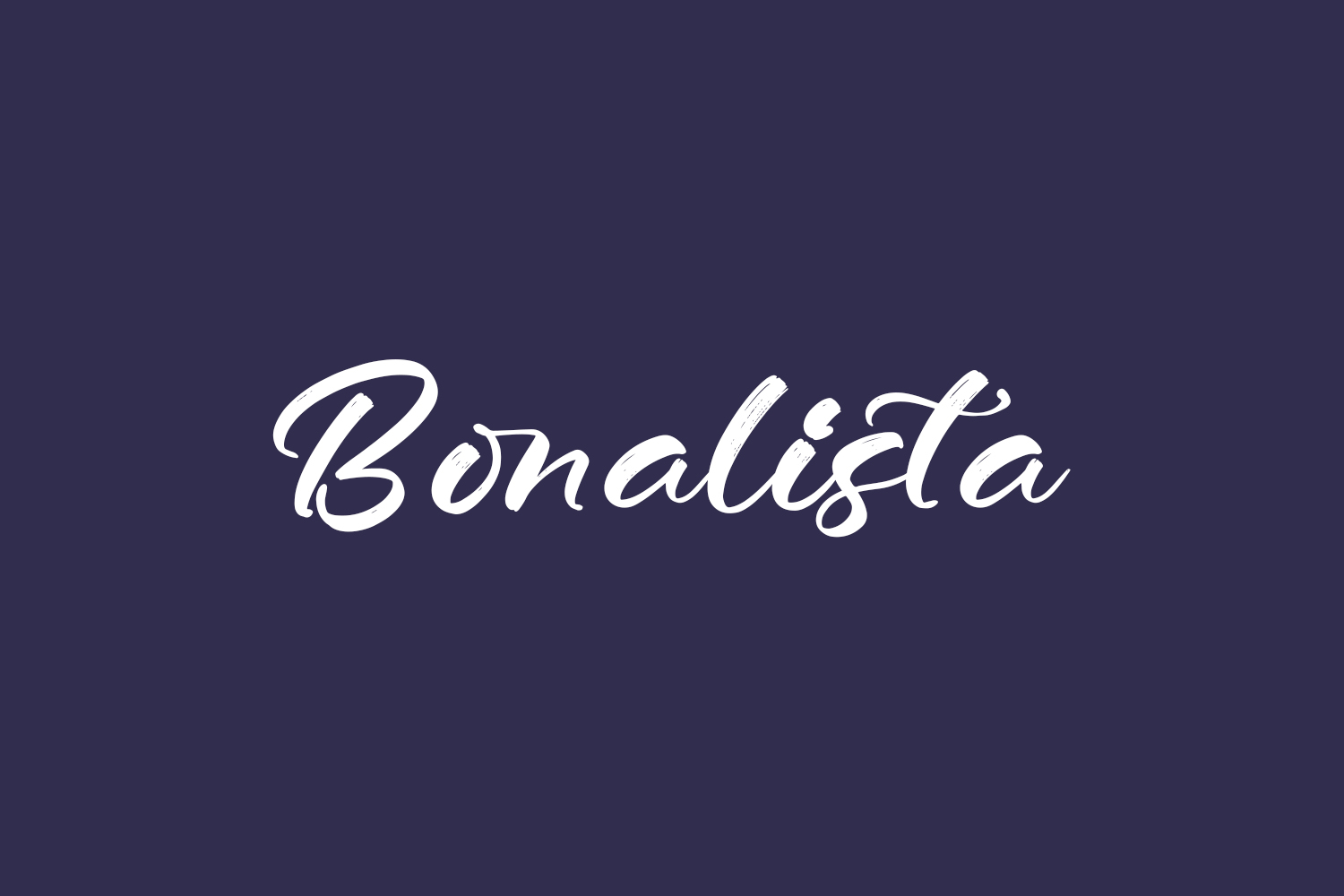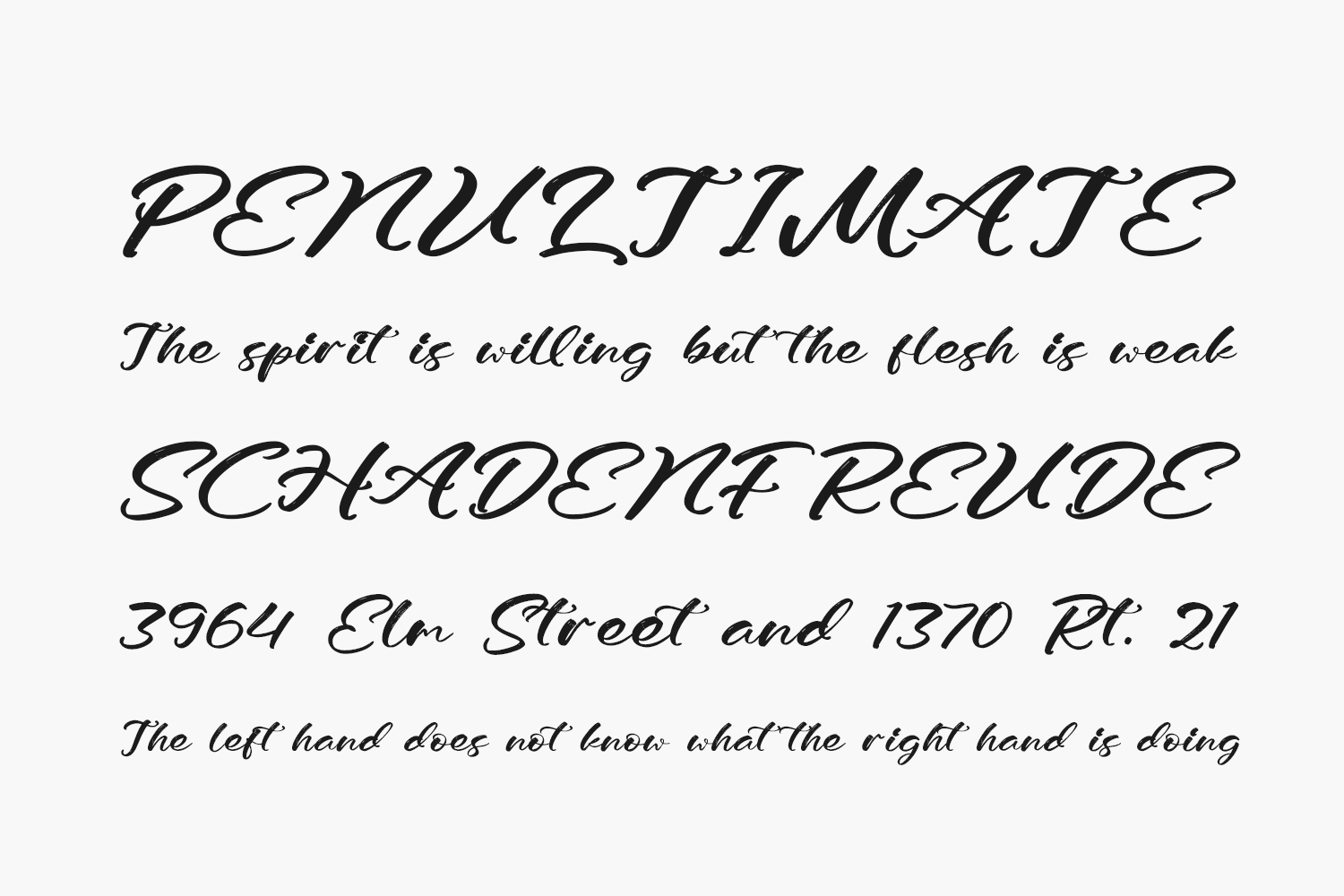
Explore the Bonalista Free Font, a contemporary brush calligraphy typeface crafted for diverse projects. Ideal for logos, branding initiatives, homeware designs, product packaging, mugs, quotes, posters, shopping bags, t-shirts, book covers, name cards, invitation cards, greeting cards, labels, photography, watermarks, special events, and more. Elevate all your delightful projects with the exquisite script style of Bonalista. Download the font for free if you need it for personal use or purchase the full version for commercial use.